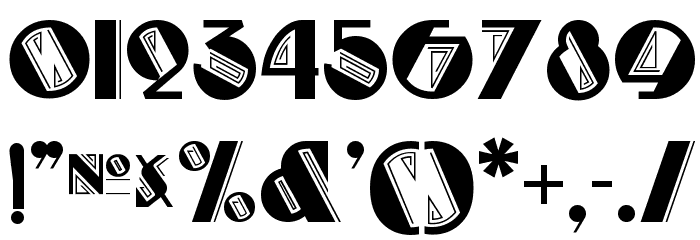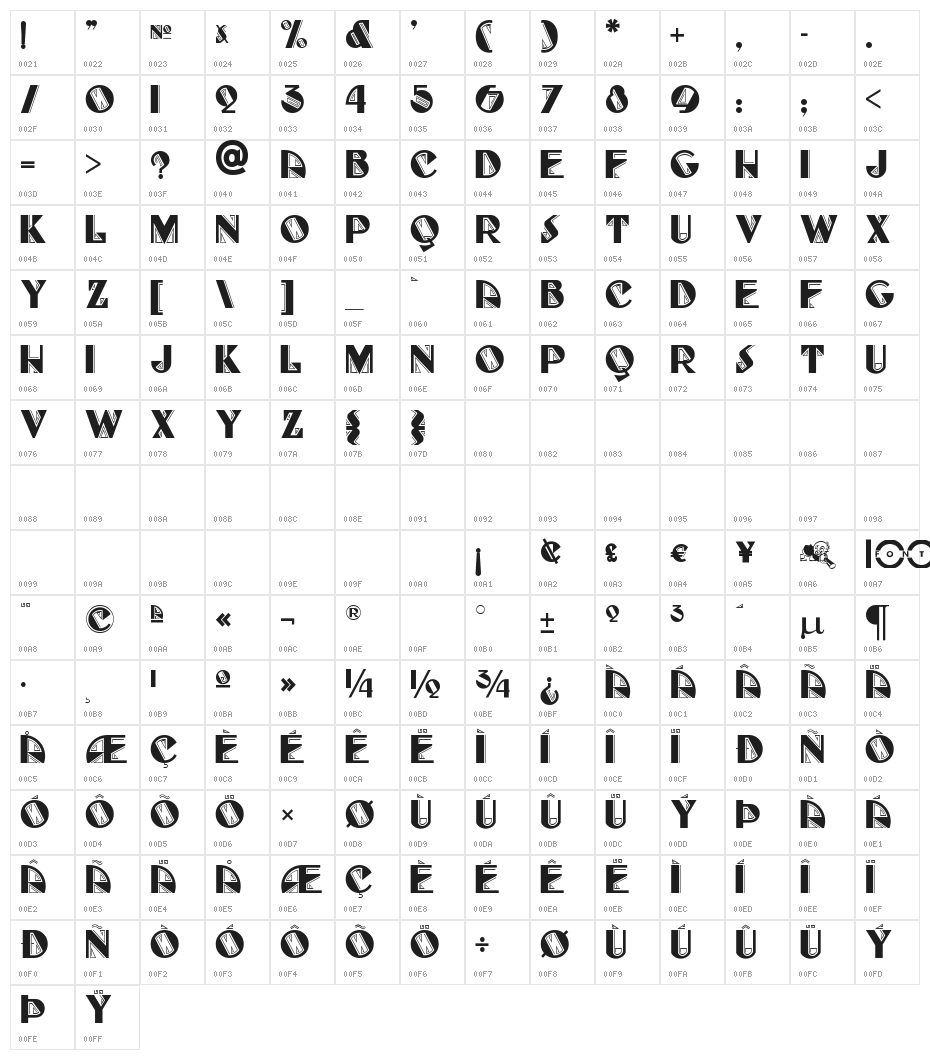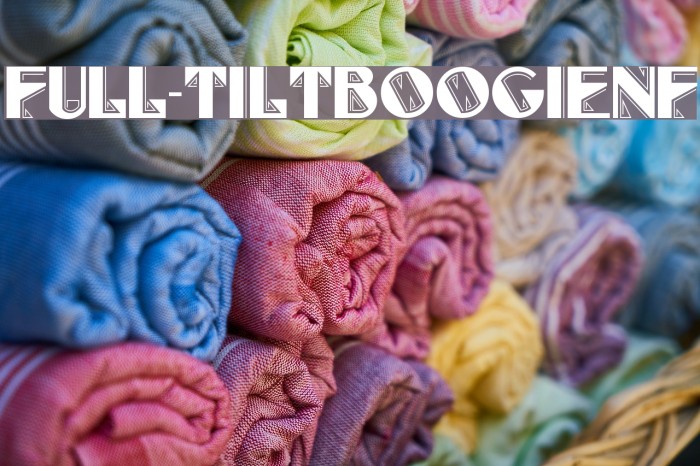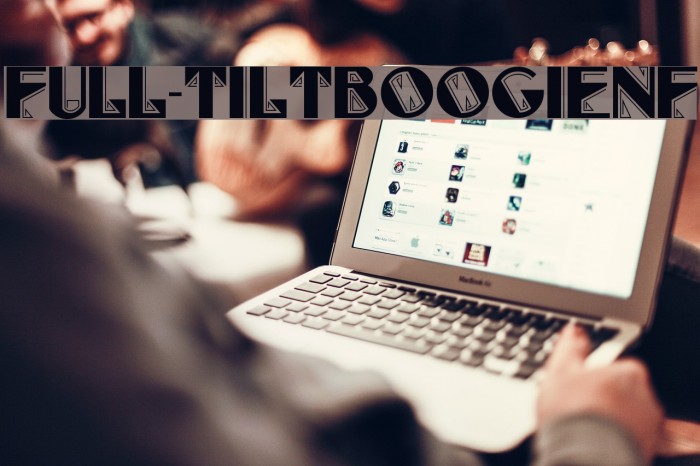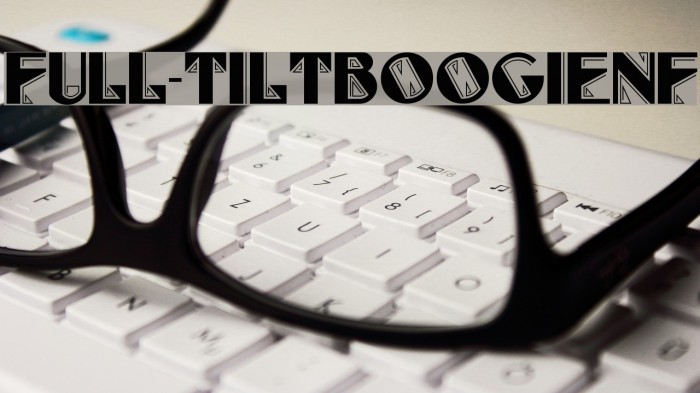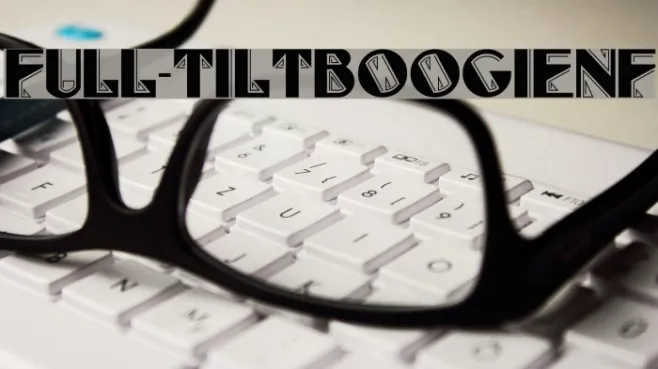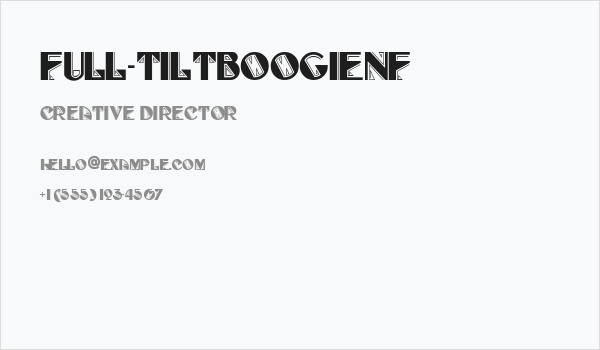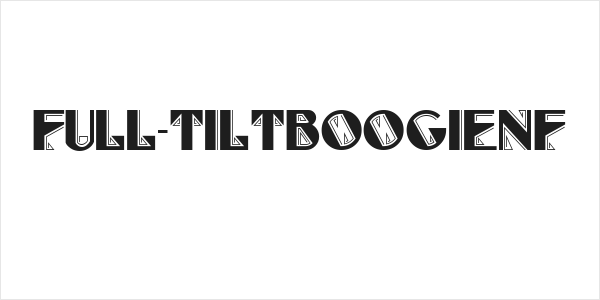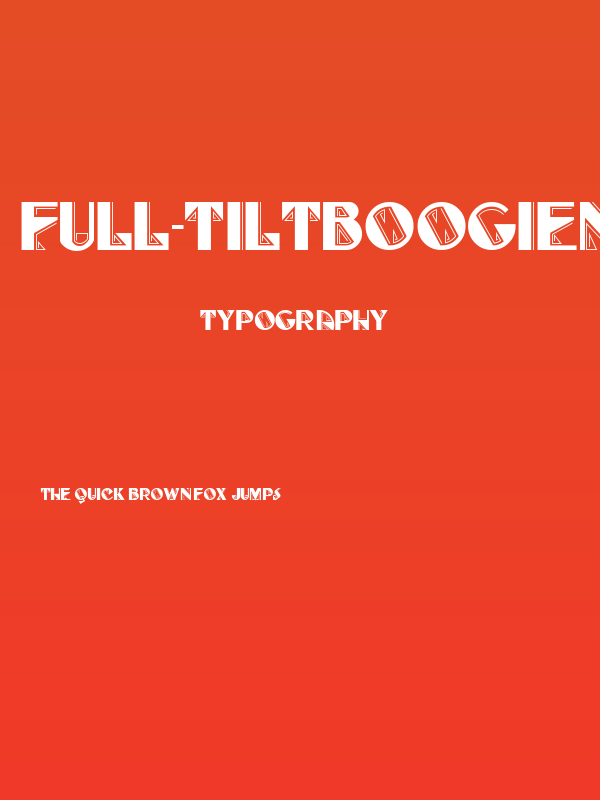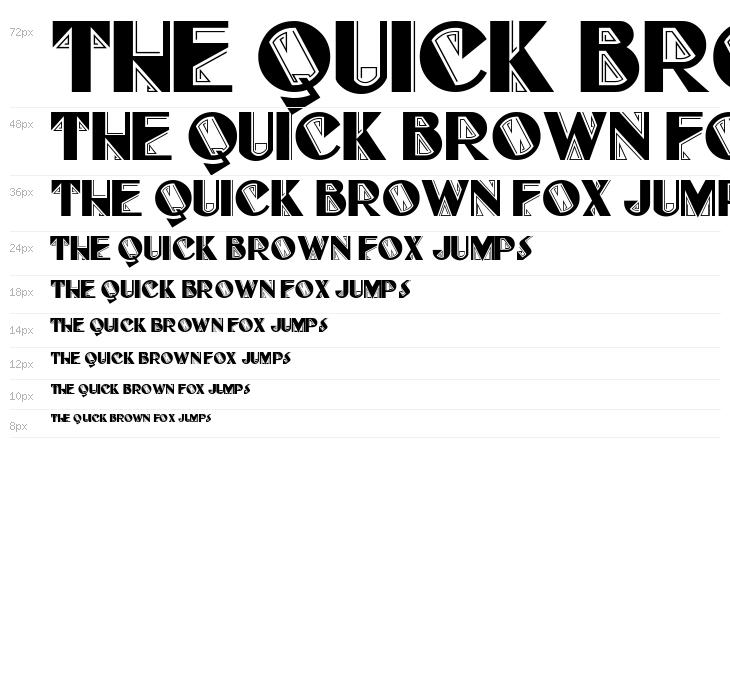
Full-TiltBoogieNF Font
Full-TiltBoogieNF Description
This font features a bold and dynamic design with a unique geometric style. Each character is crafted with a combination of solid black shapes and intricate white line patterns, creating a striking contrast. The angular and sharp edges give it a modern and edgy appearance, making it stand out in any design. The font includes both uppercase and lowercase letters, numbers, and a variety of special characters, all maintaining the same distinctive style. Its boldness and decorative elements make it ideal for eye-catching headlines and creative projects.